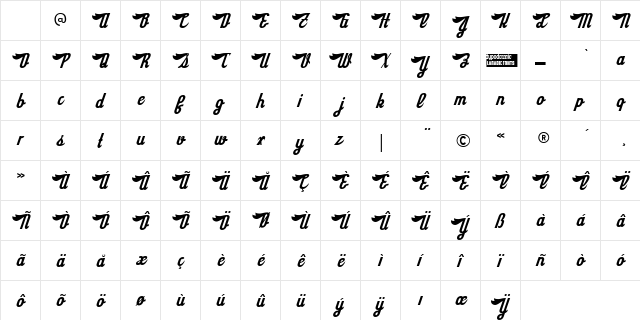
Complete Sloe Gin Rickey Regular glyph index. Displaying only characters natively supported by Sloe Gin Rickey Regular font.
Sloe Gin Rickey is a composed and adaptable typeface that performs quietly and consistently across a wide range of design contexts.